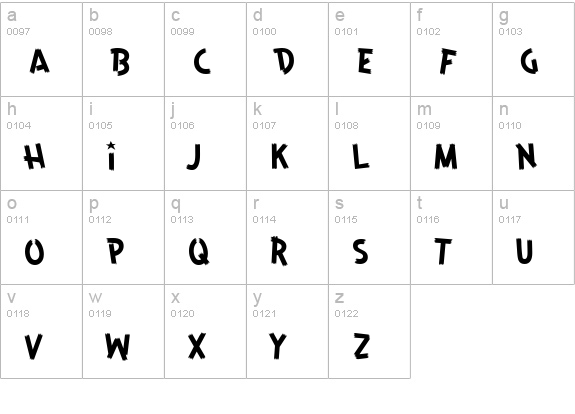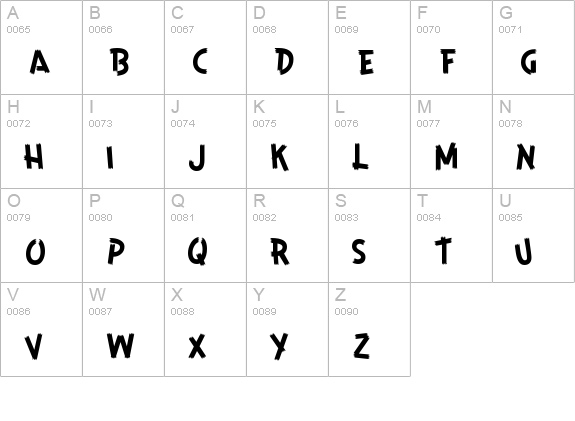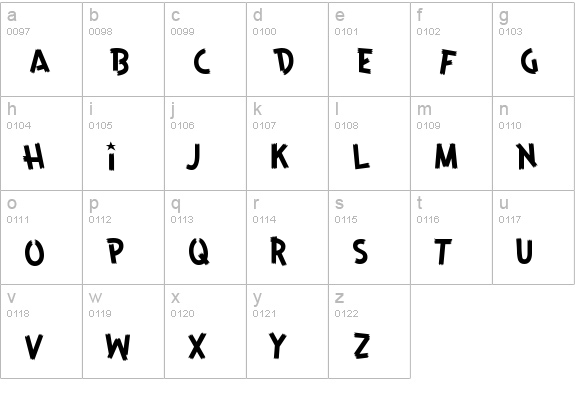
Holiday Ranch is a charming and versatile font that perfectly captures the spirit of the great outdoors. With its playful yet elegant design, this typeface is ideal for adding a touch of whimsy to any project. The unique letterforms and stylish flourishes make Holiday Ranch a standout choice for logos, branding, invitations, and more. And the best part? Holiday Ranch is completely free to download at FontsMarket.com! Whether you're a seasoned designer or just starting out, this font is a must-have addition to your collection. So why wait? Add a touch of rustic charm to your designs with Holiday Ranch today!